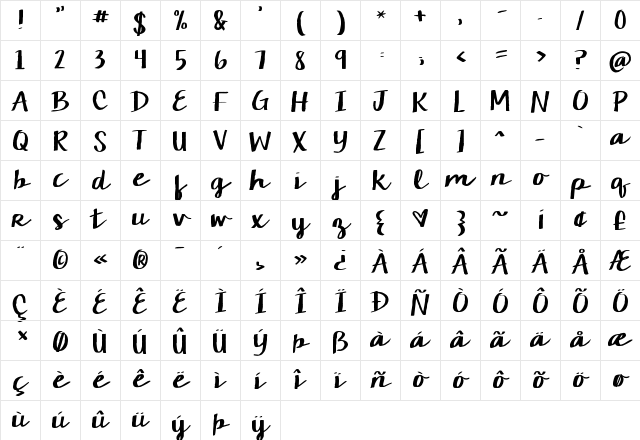
KG Camden Market Script Regular
Foundry: Kimberly Geswein
Designer: Kimberly Geswein
Design Context for KG Camden Market Script
KG Camden Market Script flows with the natural rhythm of handwritten lettering, making it ideal for designs that call for warmth and personal expression.
Font Pairing: Combine KG Camden Market Script with a simple geometric sans for maximum contrast - the tension between flowing curves and clean structure is a classic typographic pairing.
Pro Tip: Use KG Camden Market Script for short runs of text - names, titles, or taglines. Extended body copy in script faces tires the eye quickly.